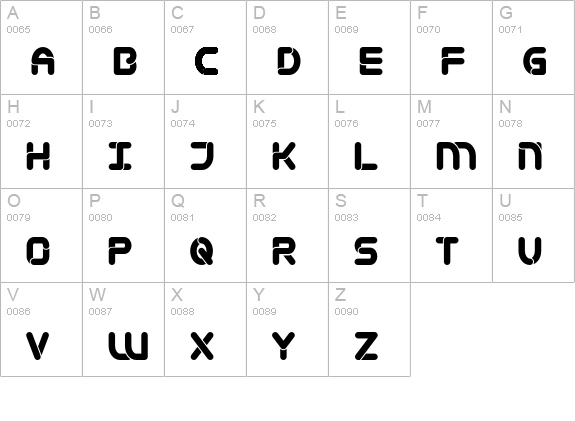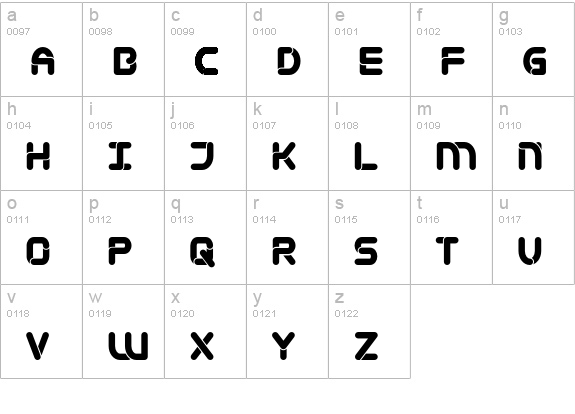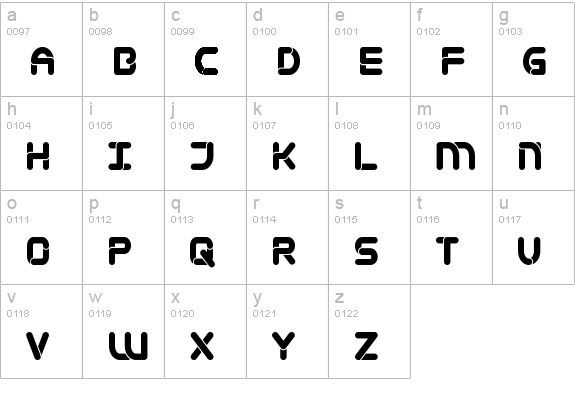
Mametosca 026 font is a stunning display font that will captivate your audience with its bold and unique design. Its sharp edges and intricate details make it perfect for headlines, logos, posters, and any other creative project that needs a touch of sophistication. What sets Mametosca 026 font apart is not only its exquisite aesthetics but also the fact that it is available for free. Yes, you read that right! This font can be freely downloaded at FontsMarket.com, allowing designers, artists, and enthusiasts alike to bring their visions to life without breaking the bank. With Mametosca 026 font, your designs will stand out from the crowd, effortlessly grabbing attention and making a lasting impression. Its versatility makes it suitable for various design styles, whether you're going for a modern and sleek look or a retro and vintage vibe. The attention to detail in each letterform is truly remarkable, showcasing the expertise and craftsmanship behind this font. Its clean lines and balanced spacing ensure legibility, even at smaller sizes, making it suitable for both print and digital applications. Take advantage of this incredible opportunity to elevate your design projects with Mametosca 026 font. Download it for free at FontsMarket.com and unlock a world of endless creative possibilities. Whether you're a professional designer or simply someone with a passion for typography, Mametosca 026 font is the perfect choice to bring your ideas to life.